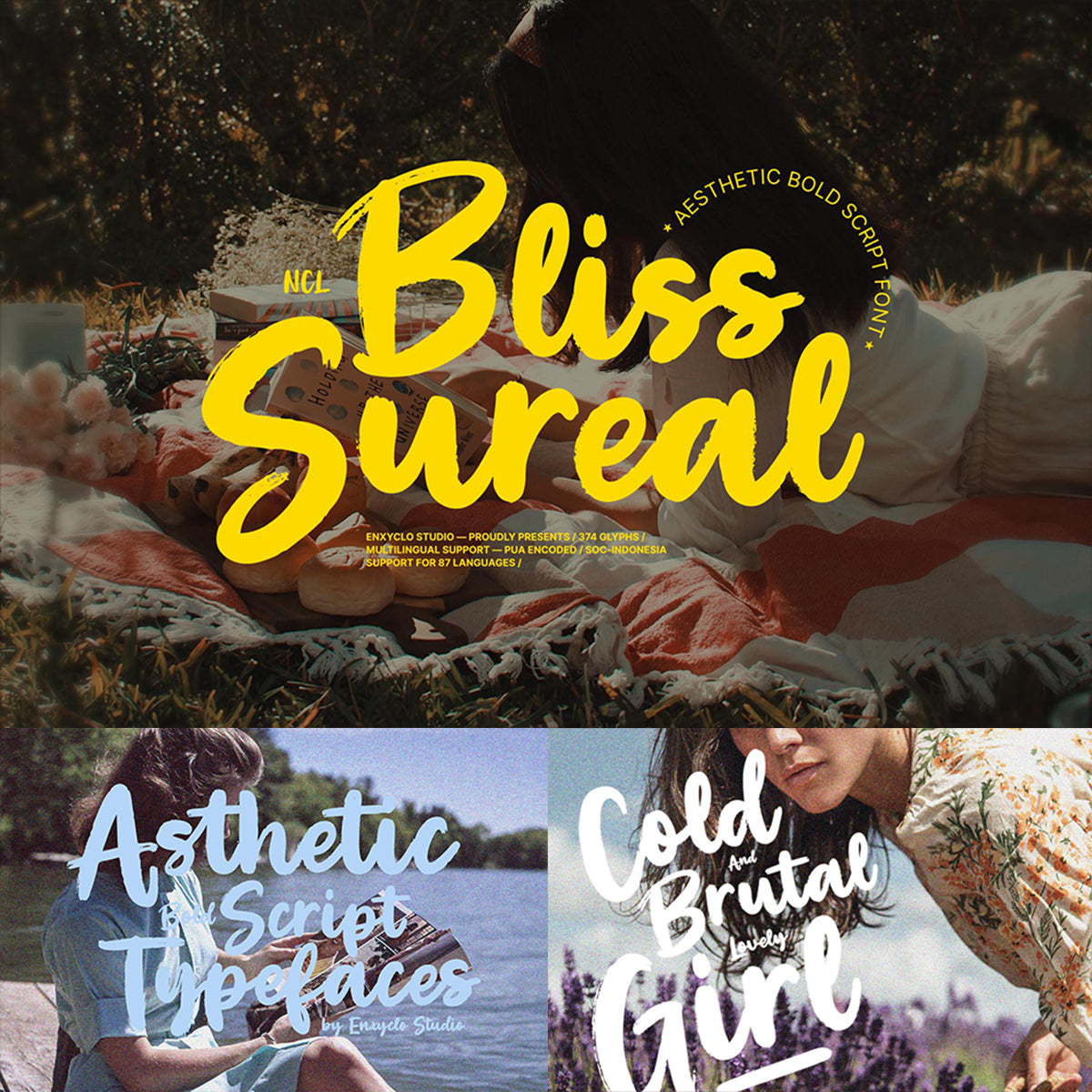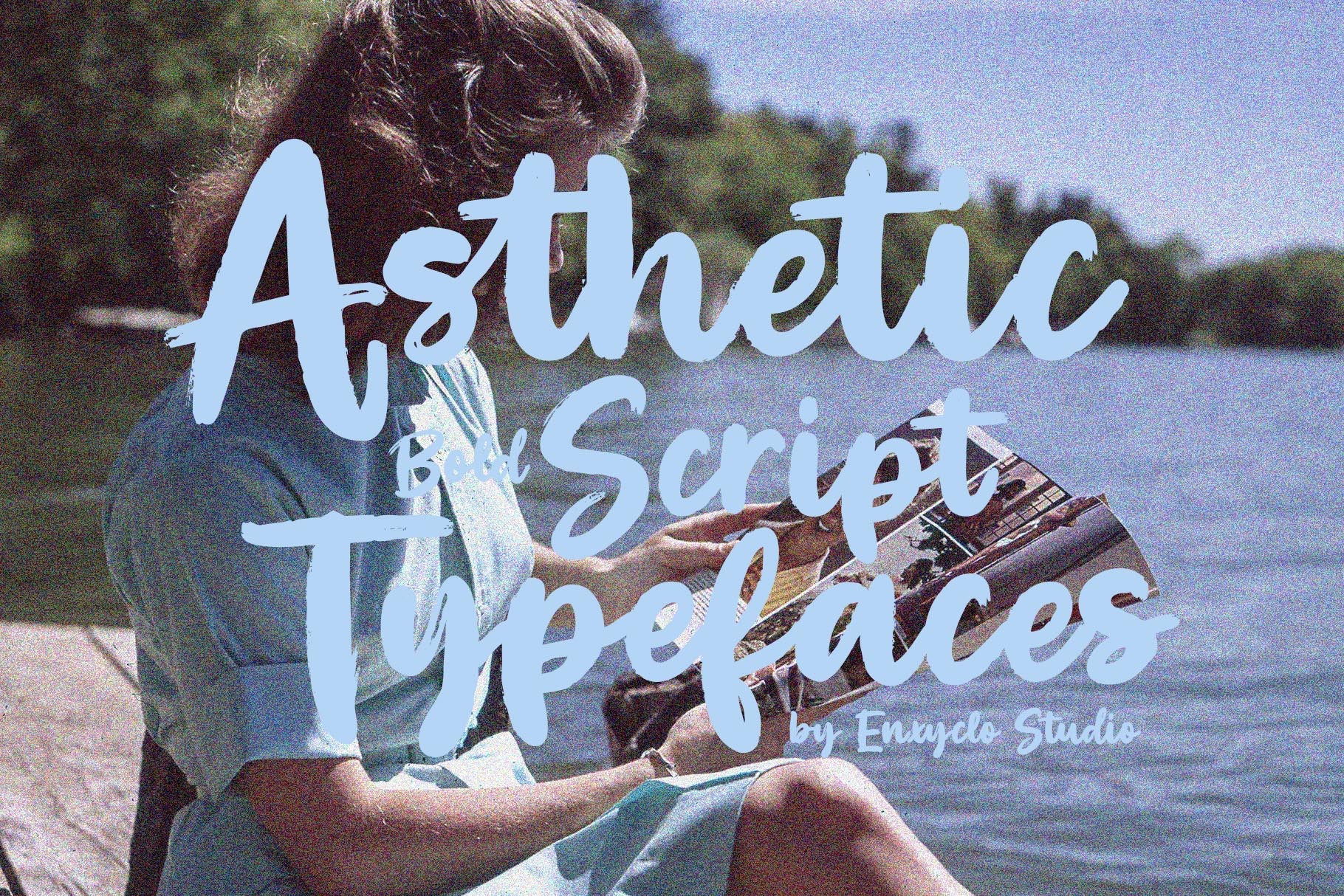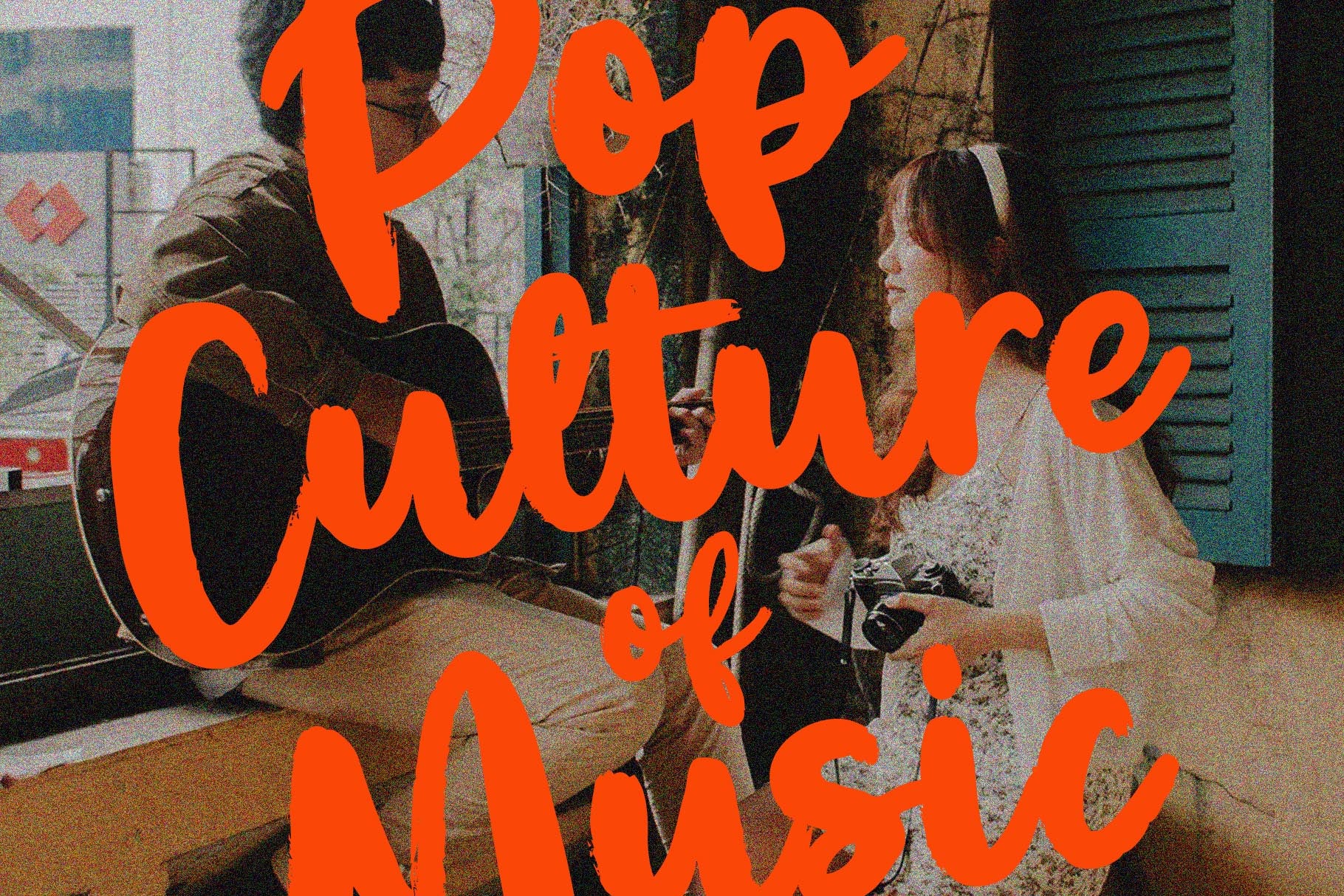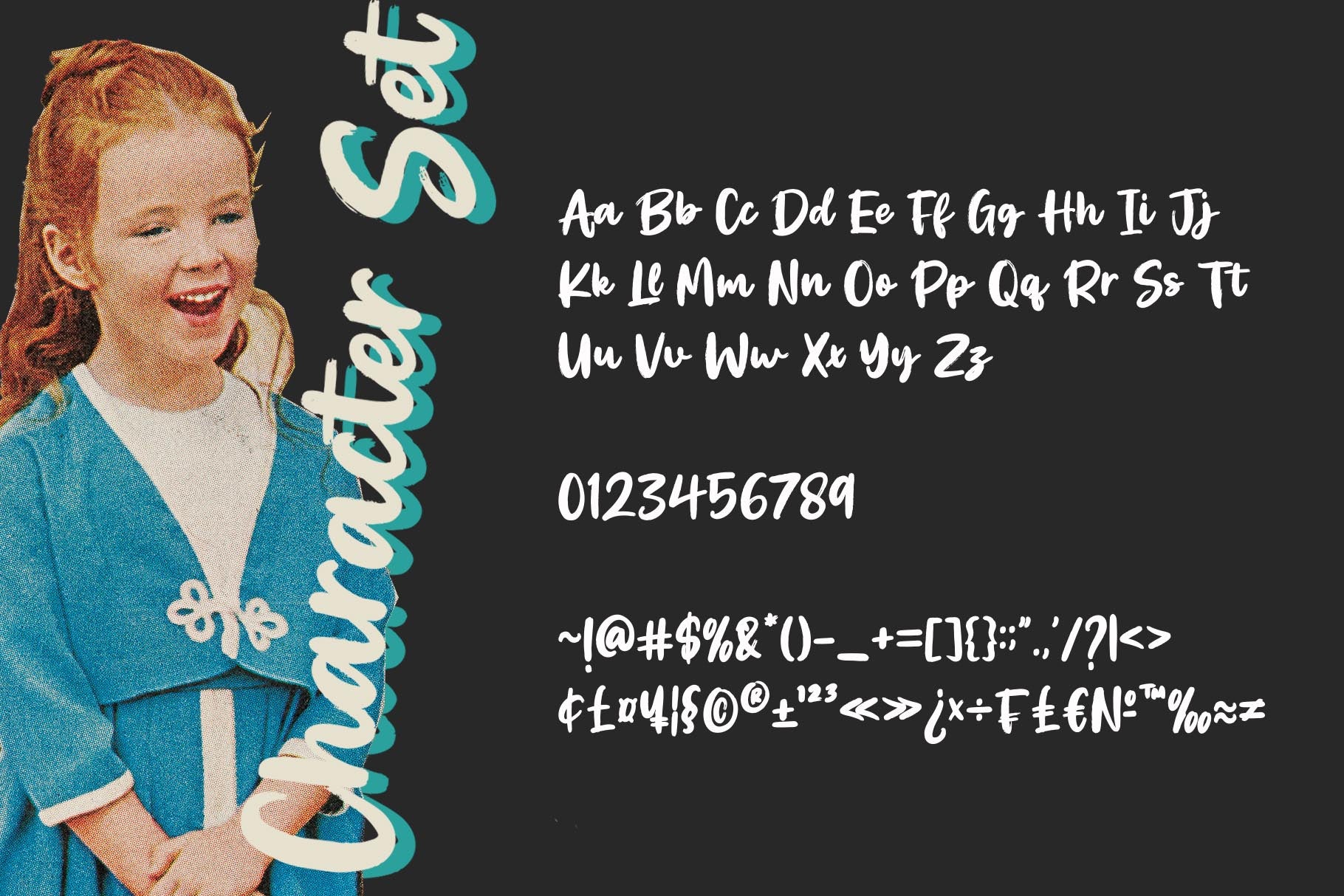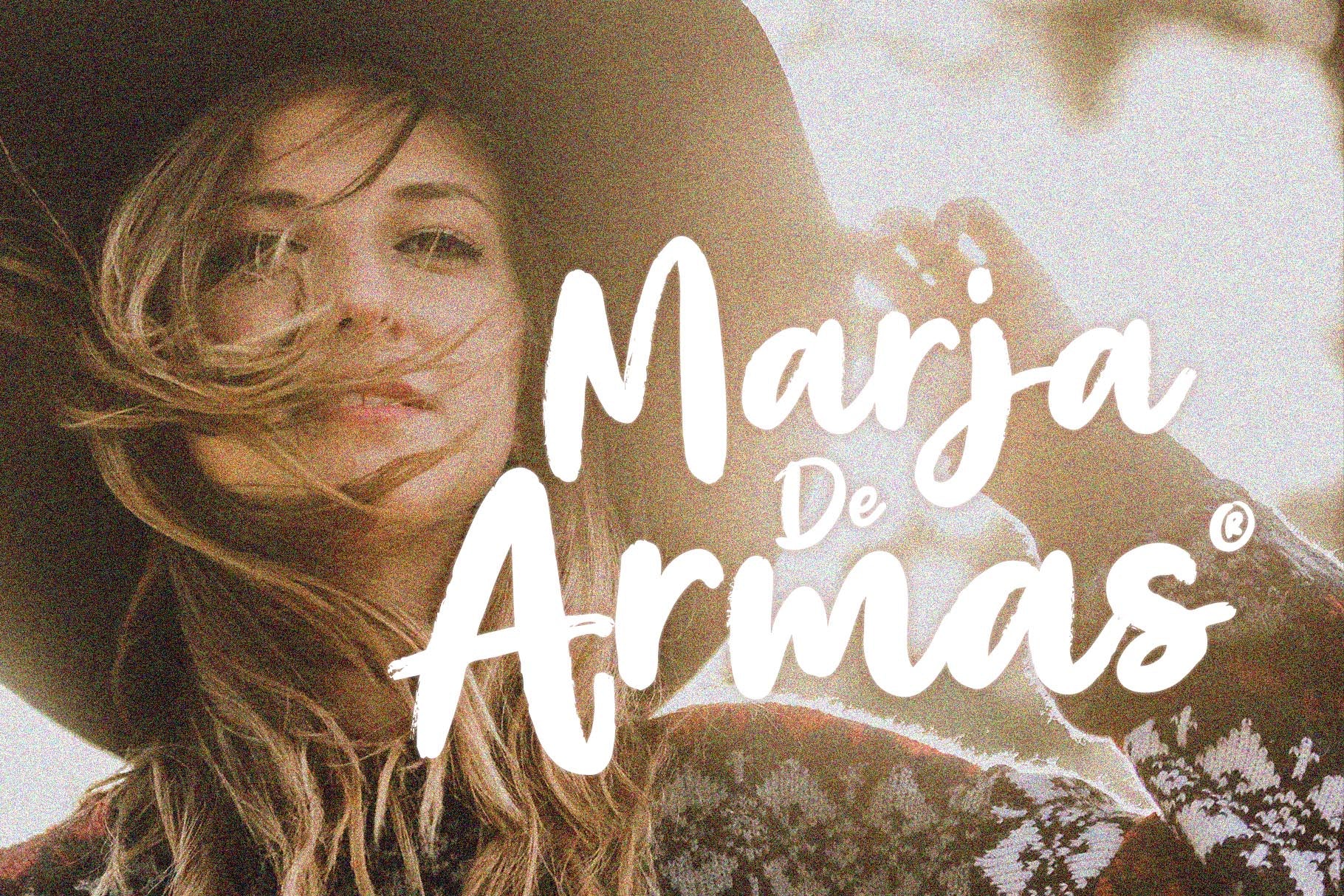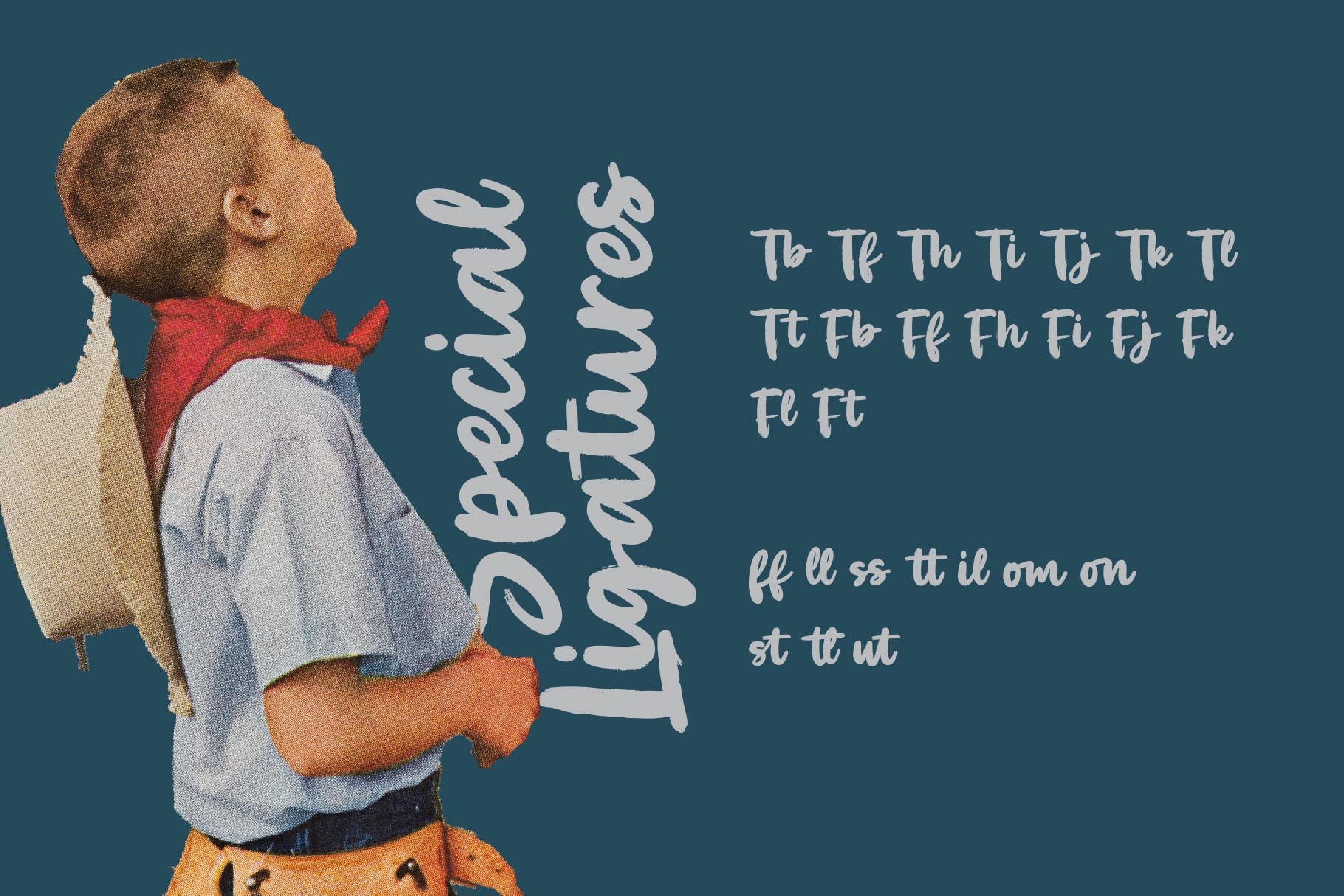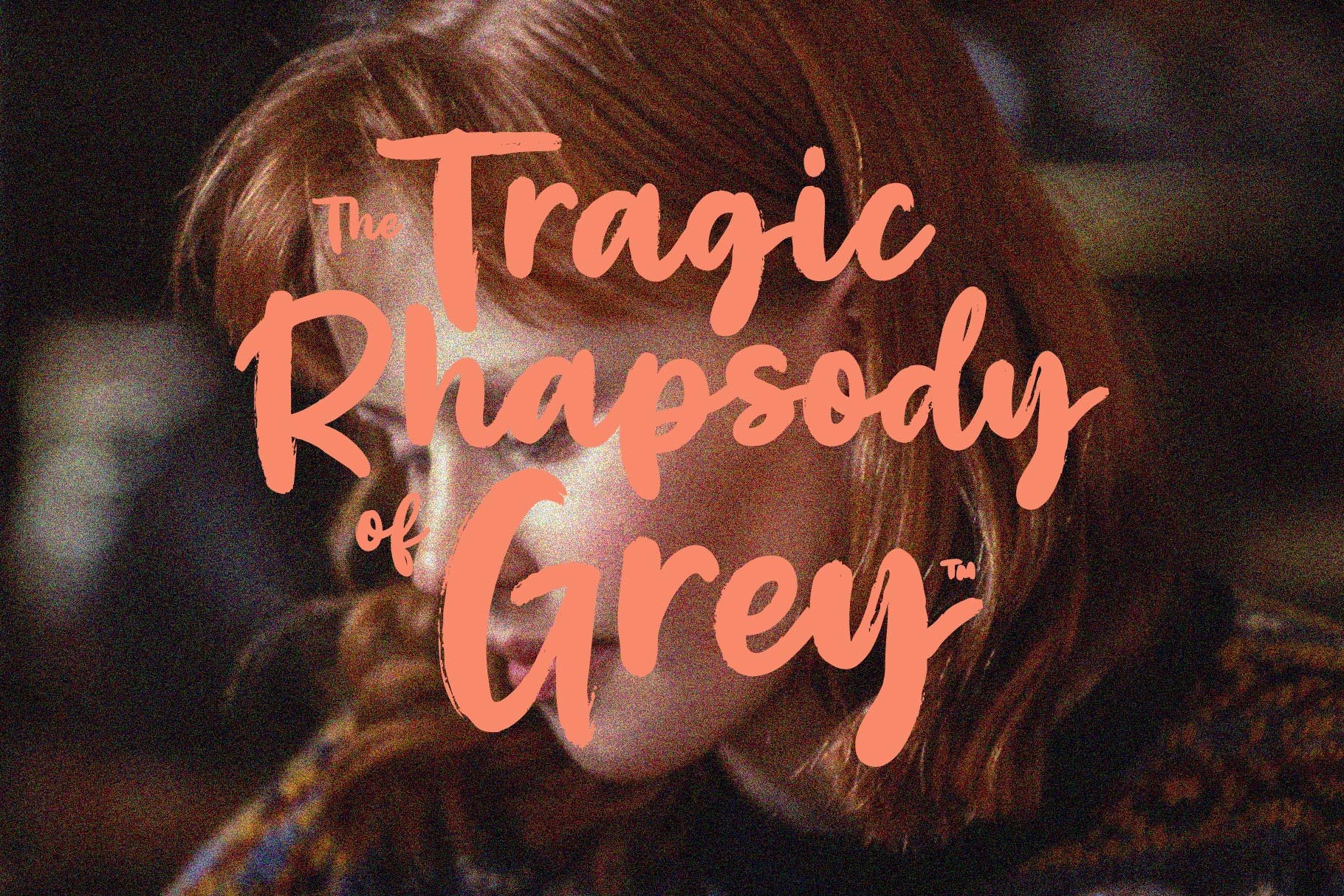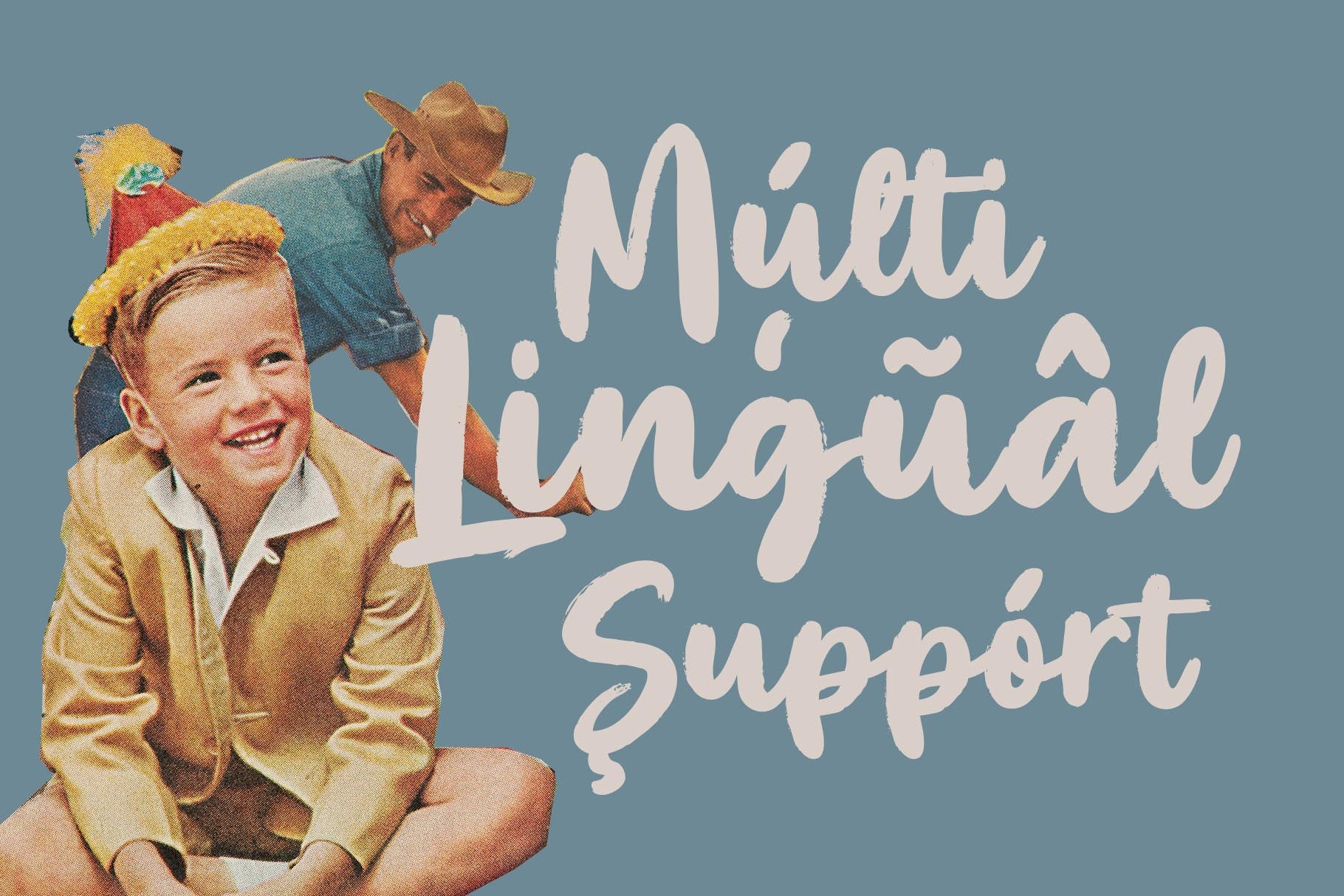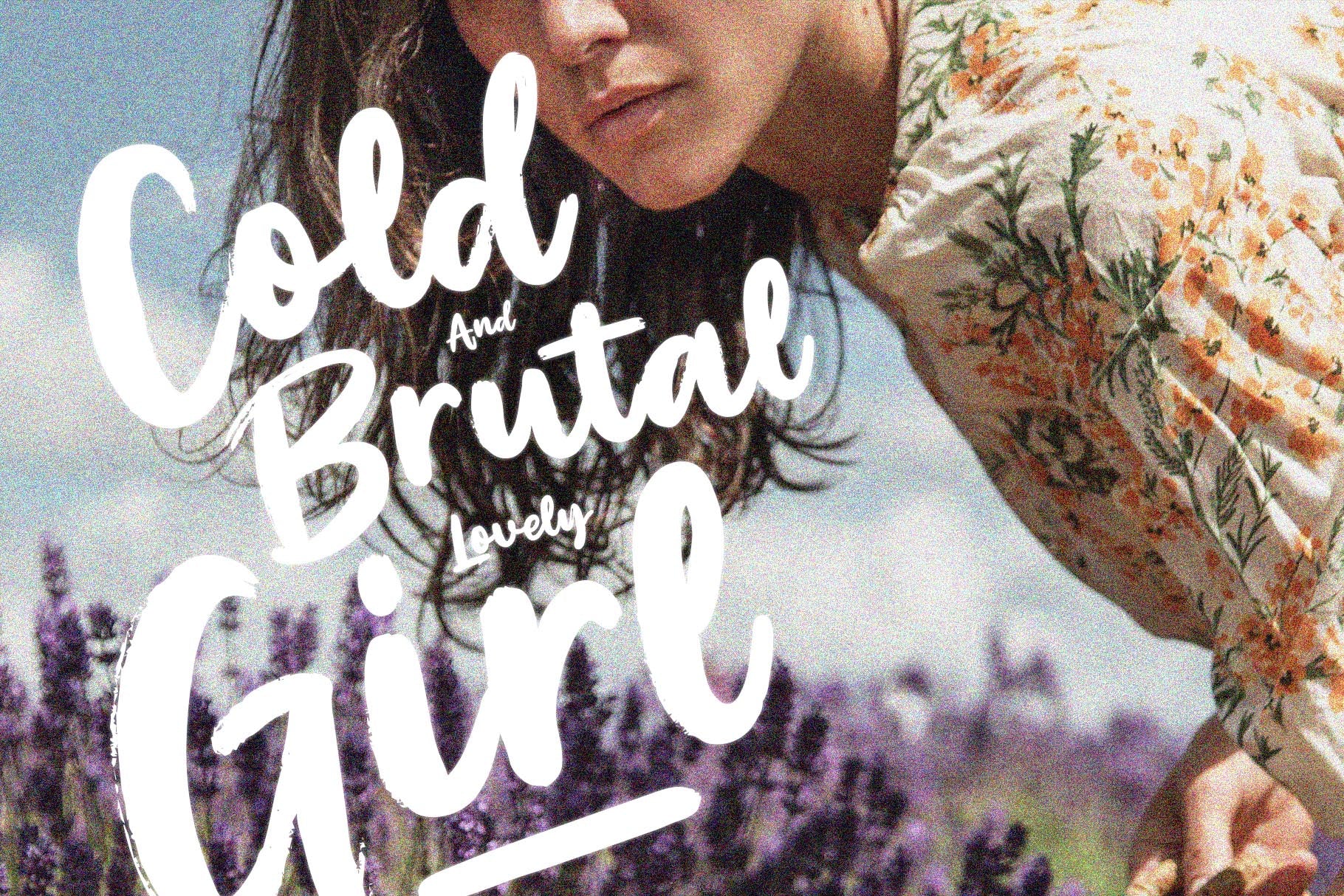
BLISS SUREAL — Bold Brush Script Font
BLISS SUREAL is bold brush script font. It's fun, unique, stylish and modern-classic display font. Masterfully designed to become a true favorite, this font has the potential to bring each of your creative ideas to the highest level! It was purposely crafted to be used in large point sizes, although it doesn’t lose its magic in small point sizes.
Contains 374 Glyphs
Uppercase, Lowercase, & Numeral
Punctuation, Symbol & Currencies
25 Ligatures
BLISS SUREAL is a bold brush script font designed for display purposes, available in True Type (TTF), Open Type (OTF), and Web Open Font Format (WOFF1 & WOFF2). It includes 374 glyphs, supports uppercase, lowercase, numerals, punctuation, symbols, currencies, and features 25 ligatures, along with multilingual support.